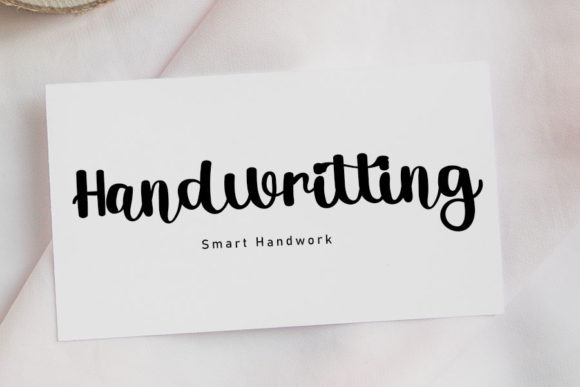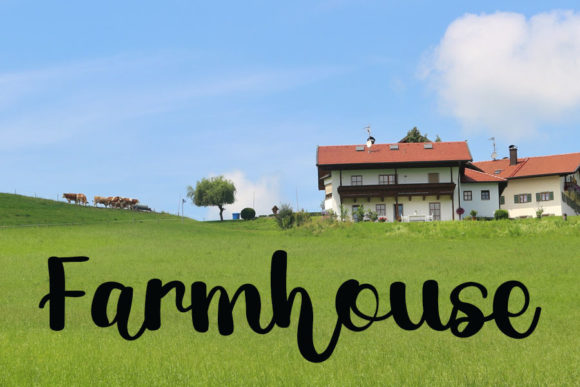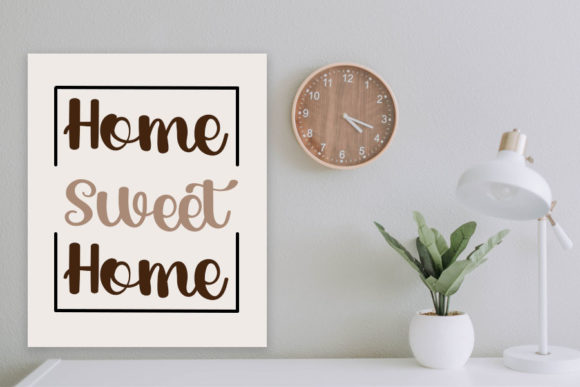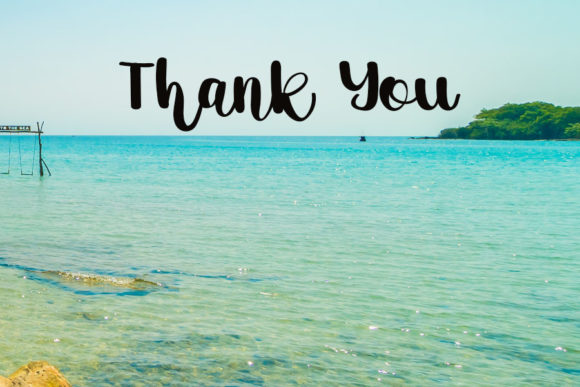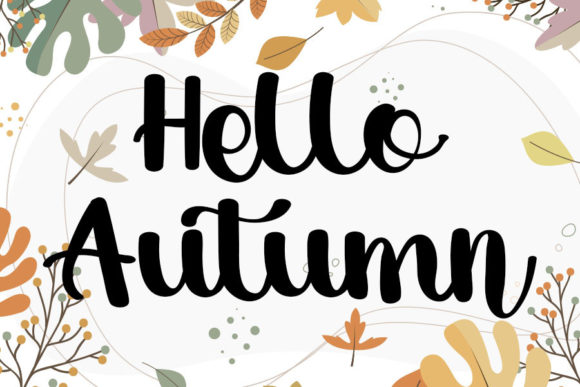
Village Font
About Village Font
Village is a lovely script font featuring charming, playful characters that seem to dance along the baseline. Add this font to your most creative ideas, and notice how it makes them stand out!